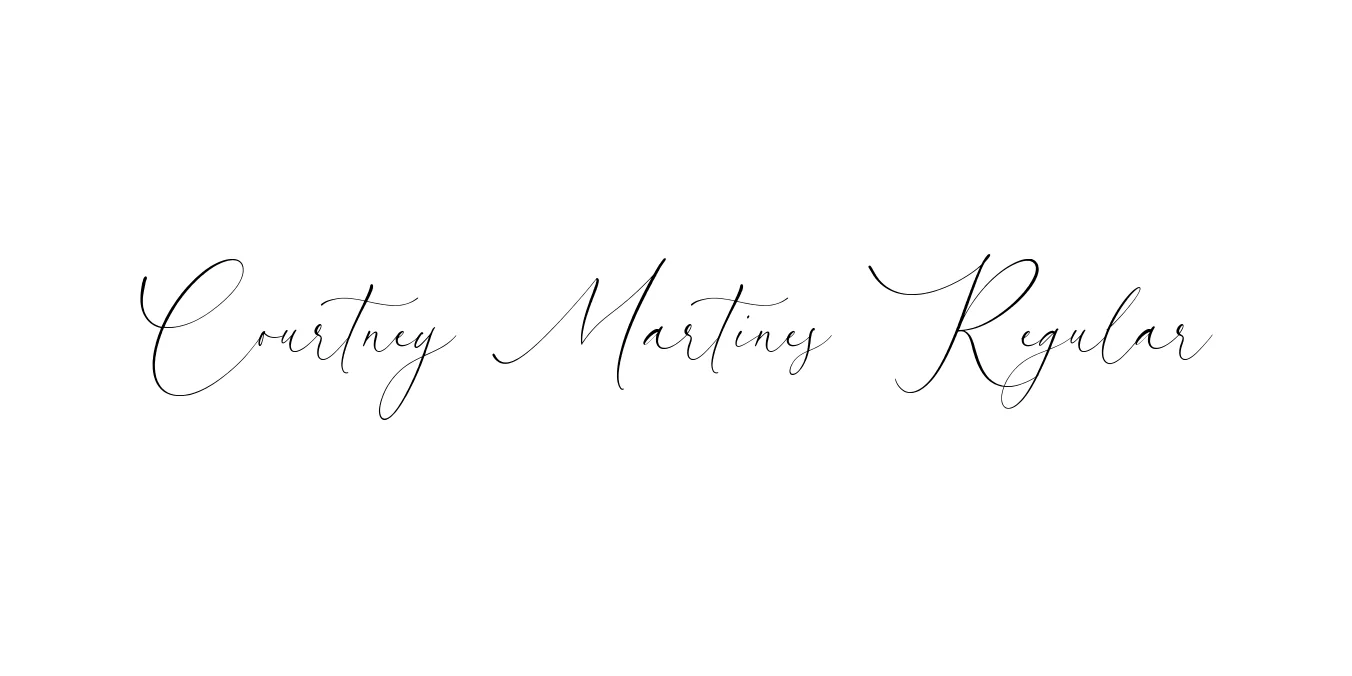
Courtney Martines Regular
Designed by Courtney Martines
| Category | Signature Script |
Courtney Martines Regular represents a contemporary approach to organic, handwritten typography, designed to capture the spontaneous energy of natural ink flow. Originating as a personal project to digitize expressive calligraphy, the font has evolved into a versatile tool for designers seeking an authentic, human touch. It eschews the rigid geometry of traditional scripts in favor of fluid, interconnected ligatures that mimic the nuances of manual penmanship, making it a staple for modern digital stationery.
From a technical standpoint, the typeface exhibits a moderate x-height that balances legibility with stylistic flair. The letterforms feature a rhythmic stroke modulation, where the contrast between thin upstrokes and thicker downstrokes creates a dynamic visual weight. Its sweeping ascenders and descenders are carefully calibrated to avoid excessive clashing in tight leading, while the rounded terminals provide a soft, approachable aesthetic suitable for high-end branding and sophisticated editorial layouts.
Courtney Martines Regular Best Uses
Ideal for elegant invitations, place cards, and RSVP sets.
Perfect for creating personalized logos and sophisticated identity systems.
Excellent for lifestyle quotes, watermarks, and feminine aesthetic overlays.